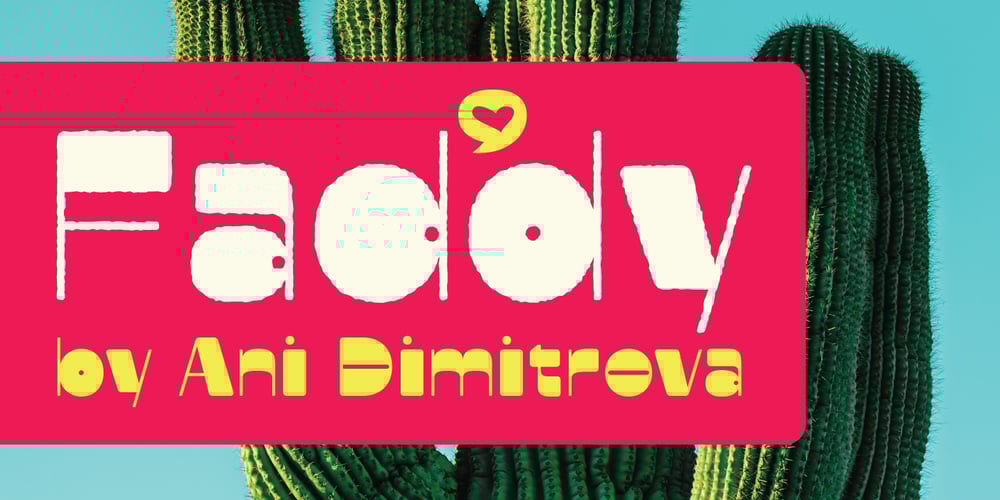
Faddy
Faddy font
Faddy Font Family was designed by Ani Dimitrova and published by Ani Dimitrova. Faddy contains 3 styles and family package options. Faddy is always fresh, smiling, slightly crazed, sometimes angry, often fuzzy, and can also be very funny. You can write with Faddy in multiple languages. Faddy contains 3 different styles – Regular, Circle & Shaggy. Each style includes more than 500 glyphs, as well as the necessary OpenType features: Superscript, Subscript, Tabular Figures, Arrows, Matching currency symbols, and fractions. Faddy also has a lot of fun stylistic sets, variants of letters that can give him a different mood and look.